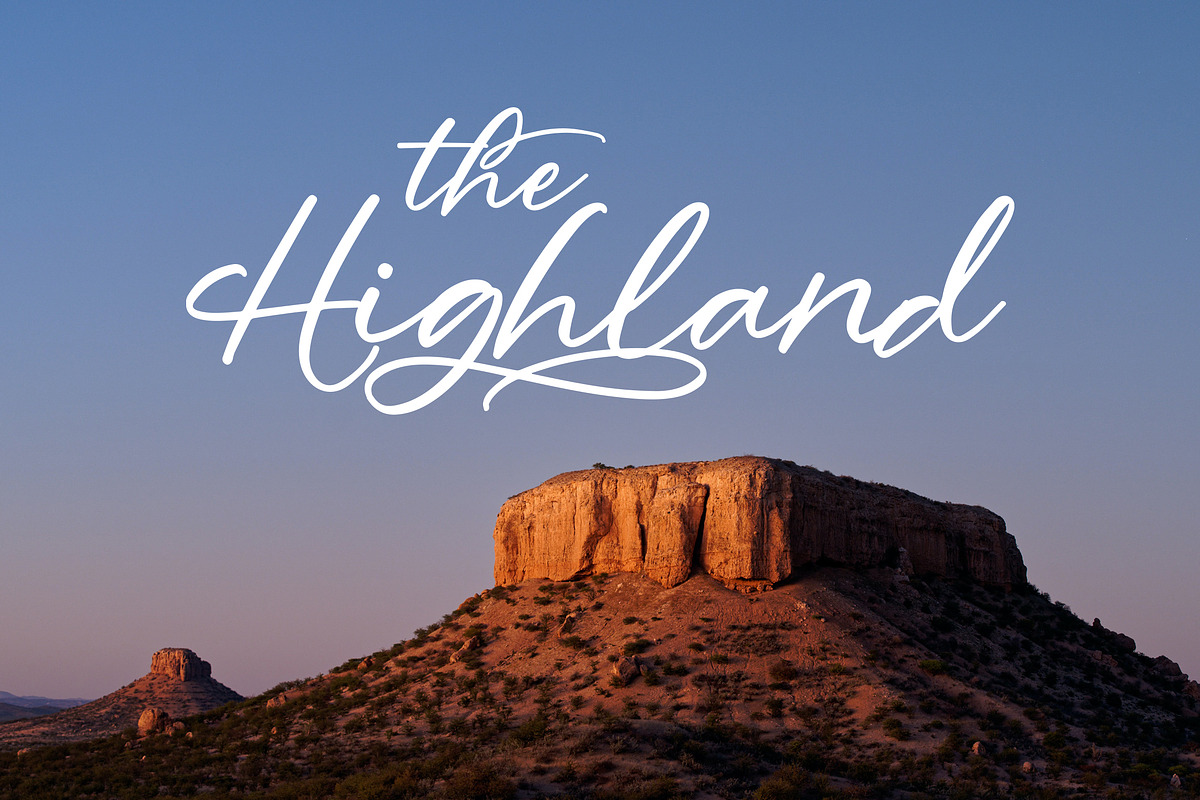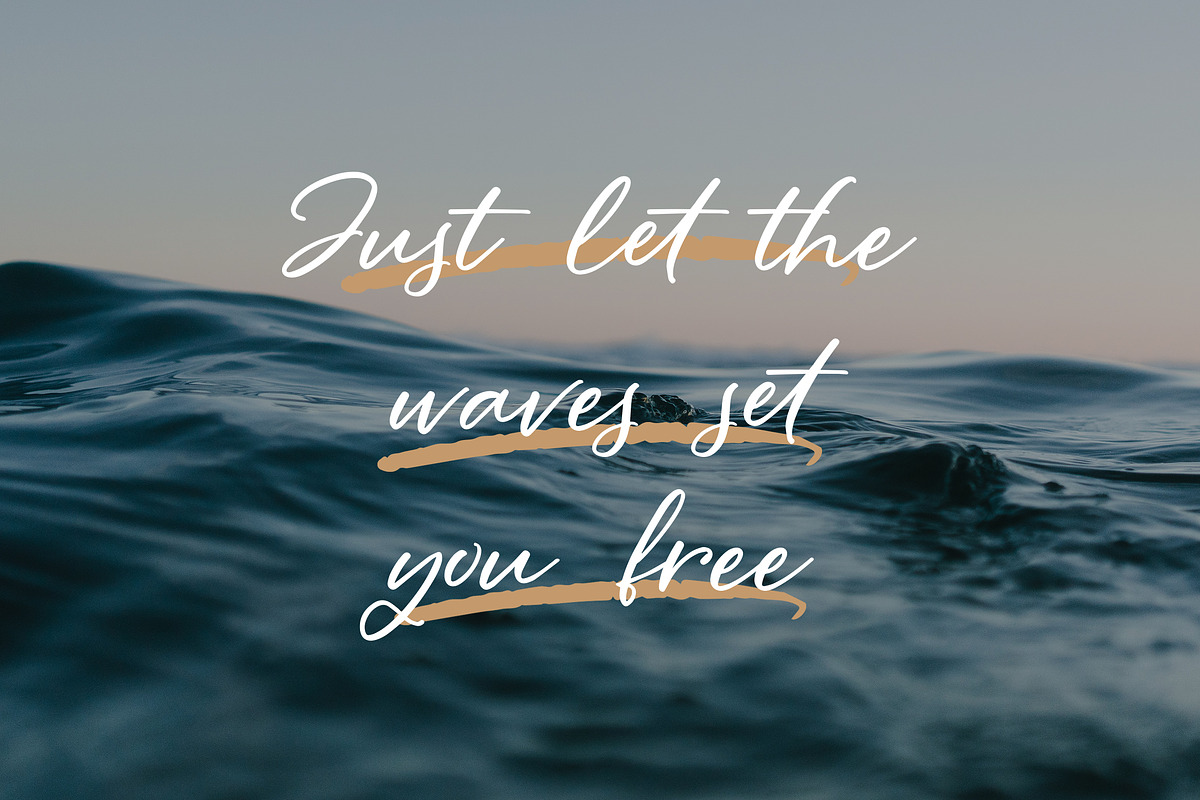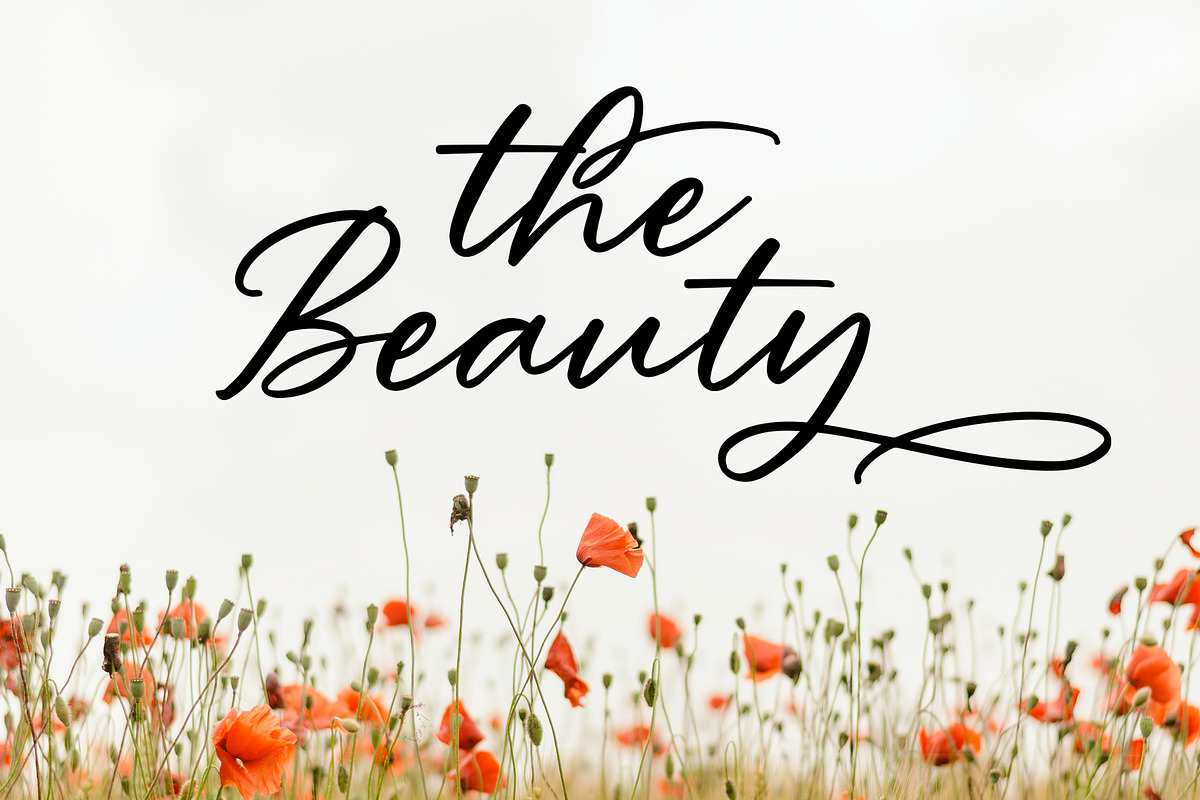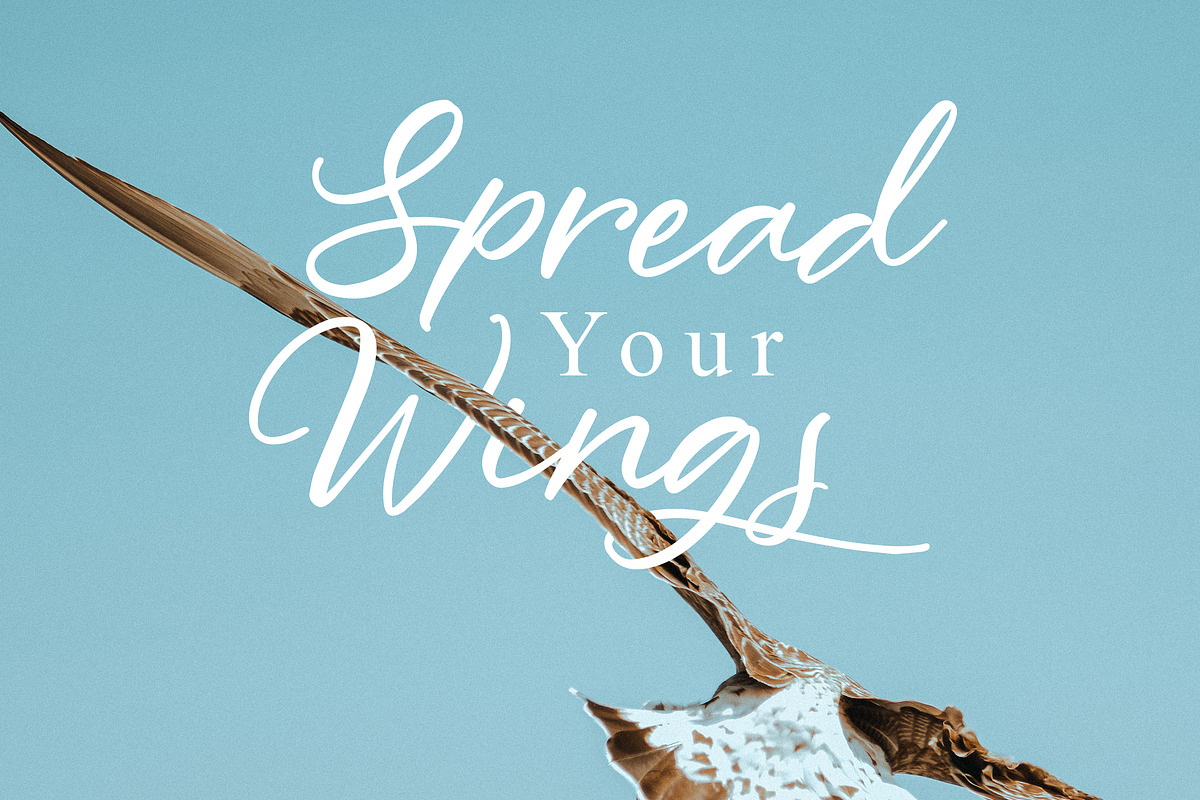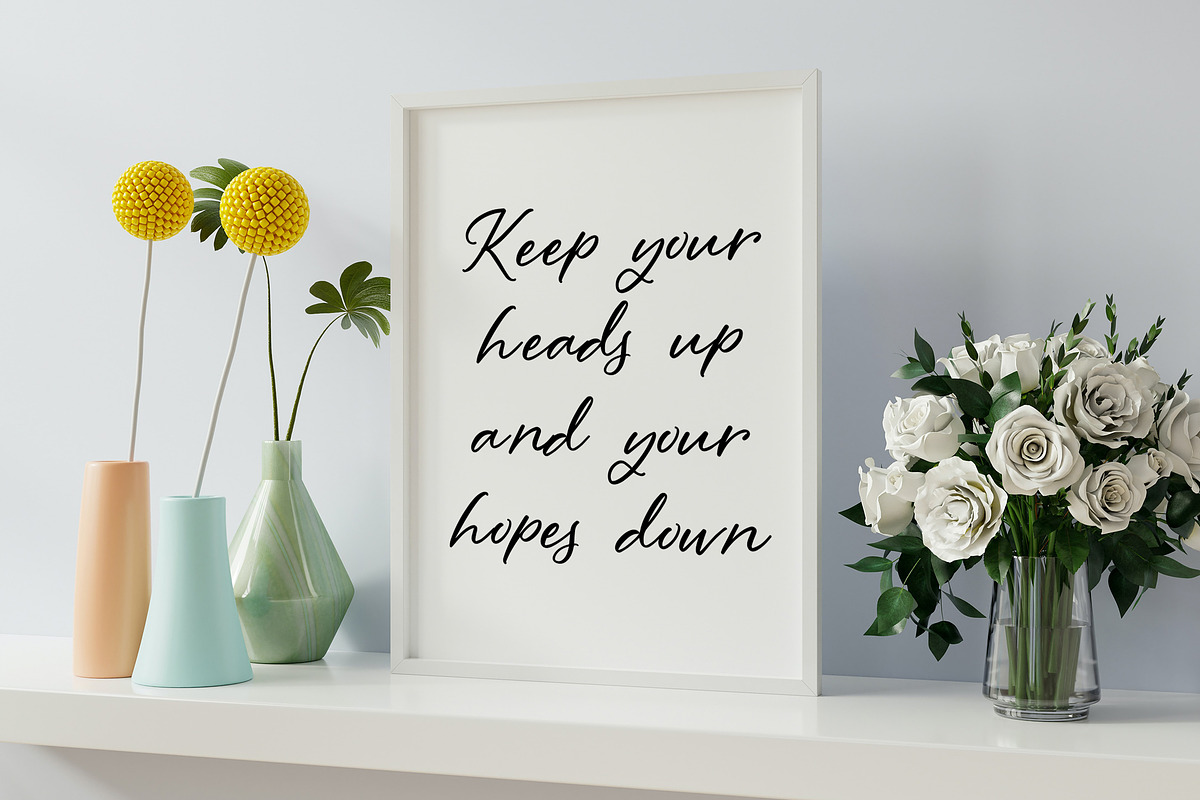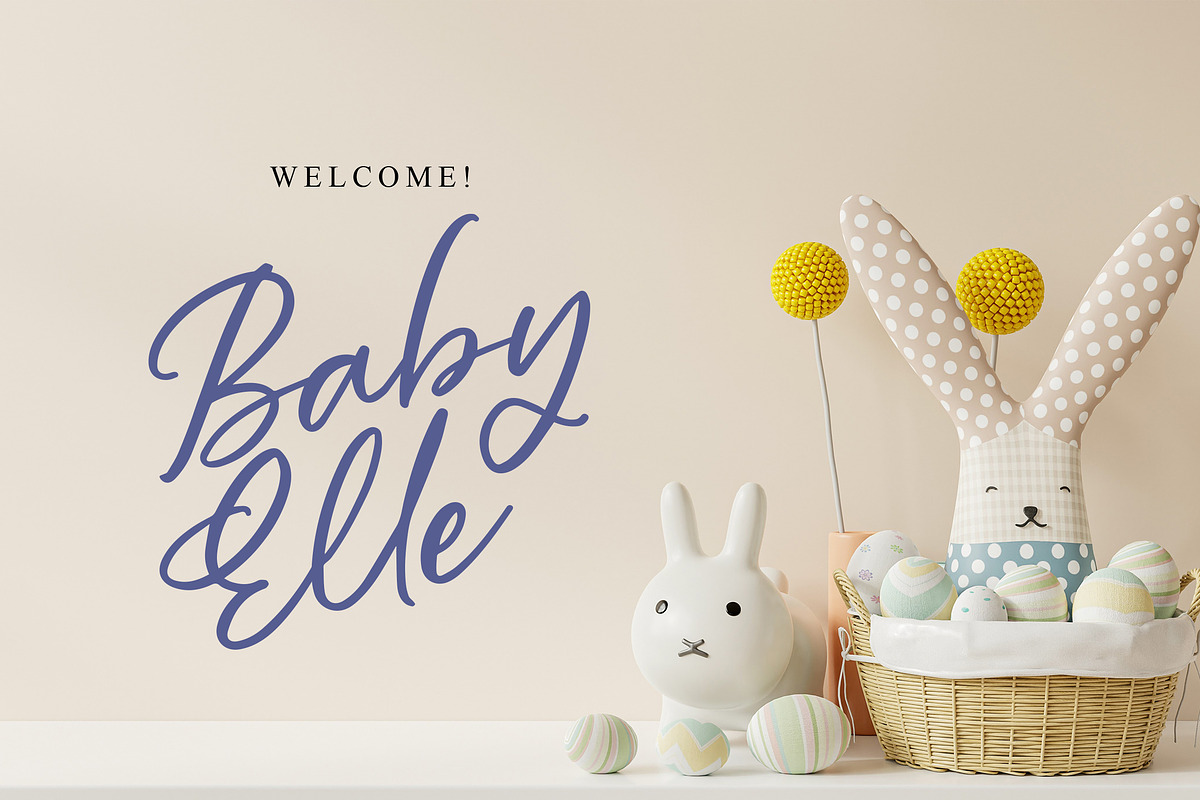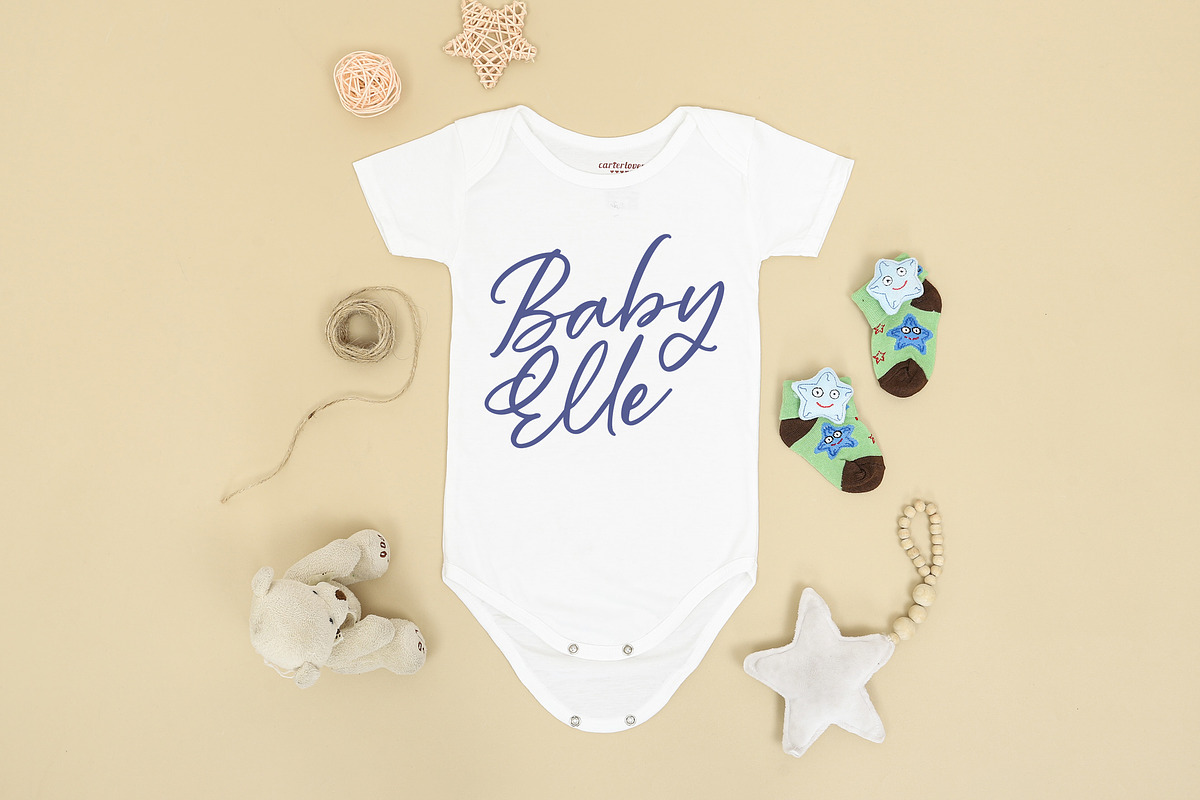
South Highland-Beautiful Script Font
South Highland - Beautiful Script Font contains a lowercase, uppercase, symbol, and also supports multi-language. There’s a lot of ligature in this font. South Highland - Beautiful Script Font also comes with ligatures, stylistic alternates and many more. this font suitable for fashion, branding, catalog and other design that you want.